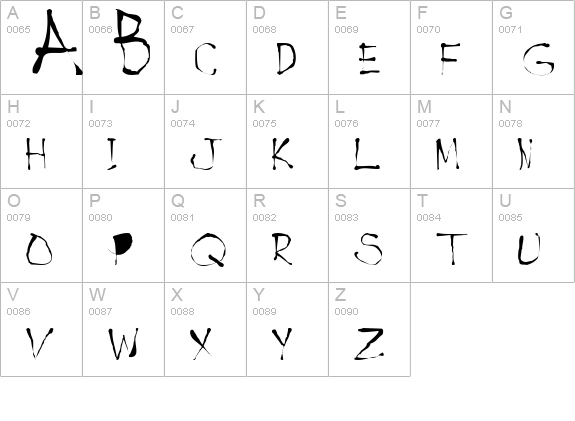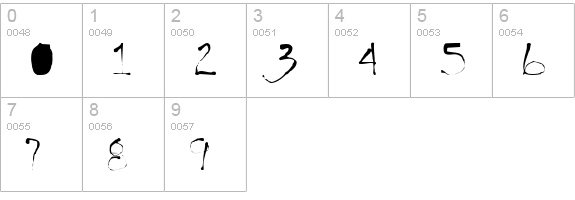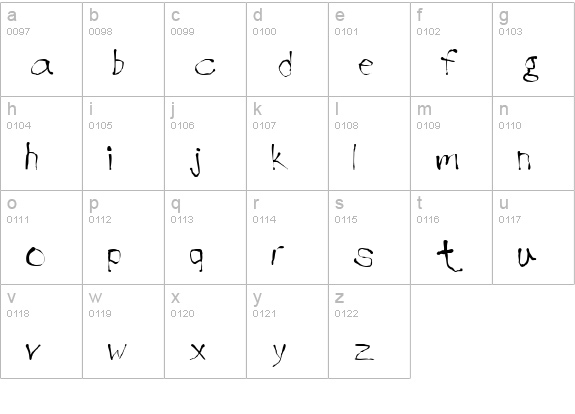
Handwrite Inkblot Font Details
Introducing Handwrite Inkblot font, a stunningly unique typeface that brings an artistic touch to your designs. This captivating font takes inspiration from the mesmerizing patterns created by inkblots, resulting in a truly one-of-a-kind appearance. Handwrite Inkblot font effortlessly combines the elegance of handwritten script with the intriguing allure of inkblot designs. Each letter is meticulously crafted to resemble the organic flow of hand-drawn ink, creating a visually striking effect that is sure to leave a lasting impression. Whether used for logos, headlines, or invitations, this font adds a touch of creativity and sophistication to any project. What makes Handwrite Inkblot font even more remarkable is that it is free! Yes, you read that right. This incredible font is freely available to download at FontsMarket.com, a trusted platform for font enthusiasts. Now, you can enhance your designs with this exquisite typeface without worrying about any additional costs. With Handwrite Inkblot font, you have the power to transform your designs into true works of art. Its versatility allows it to be used across various design projects, from branding to social media graphics, ensuring that your creations stand out from the crowd. So why wait? Download Handwrite Inkblot font today from FontsMarket.com and unleash your creativity. This font is a testament to the beauty that can be achieved when art and typography merge, and it is ready to elevate your designs to new heights. Don't miss out on this incredible opportunity to add a touch of magic and intrigue to your work.